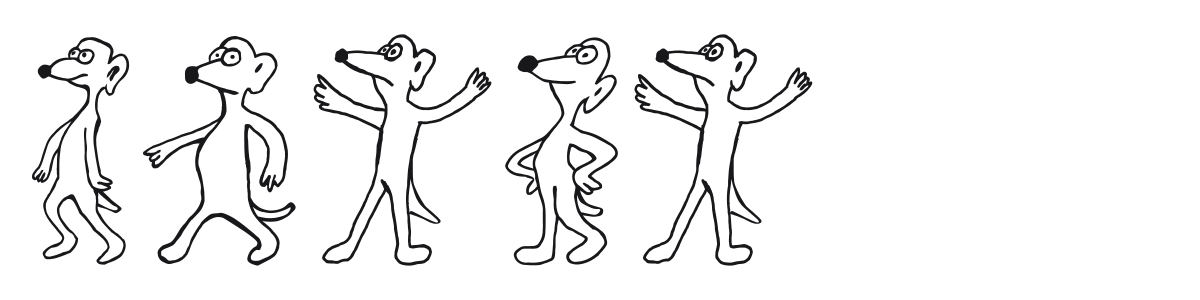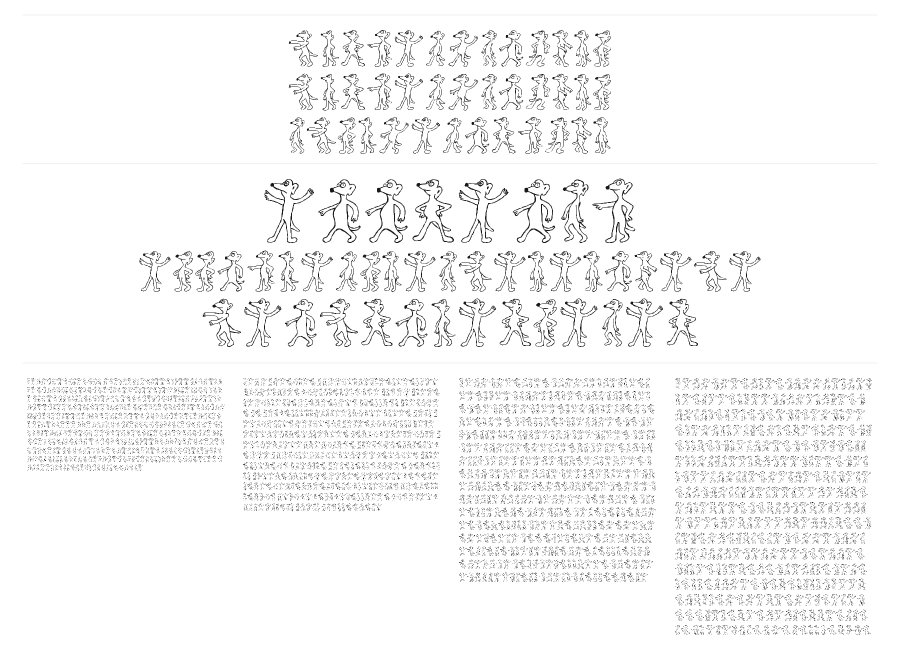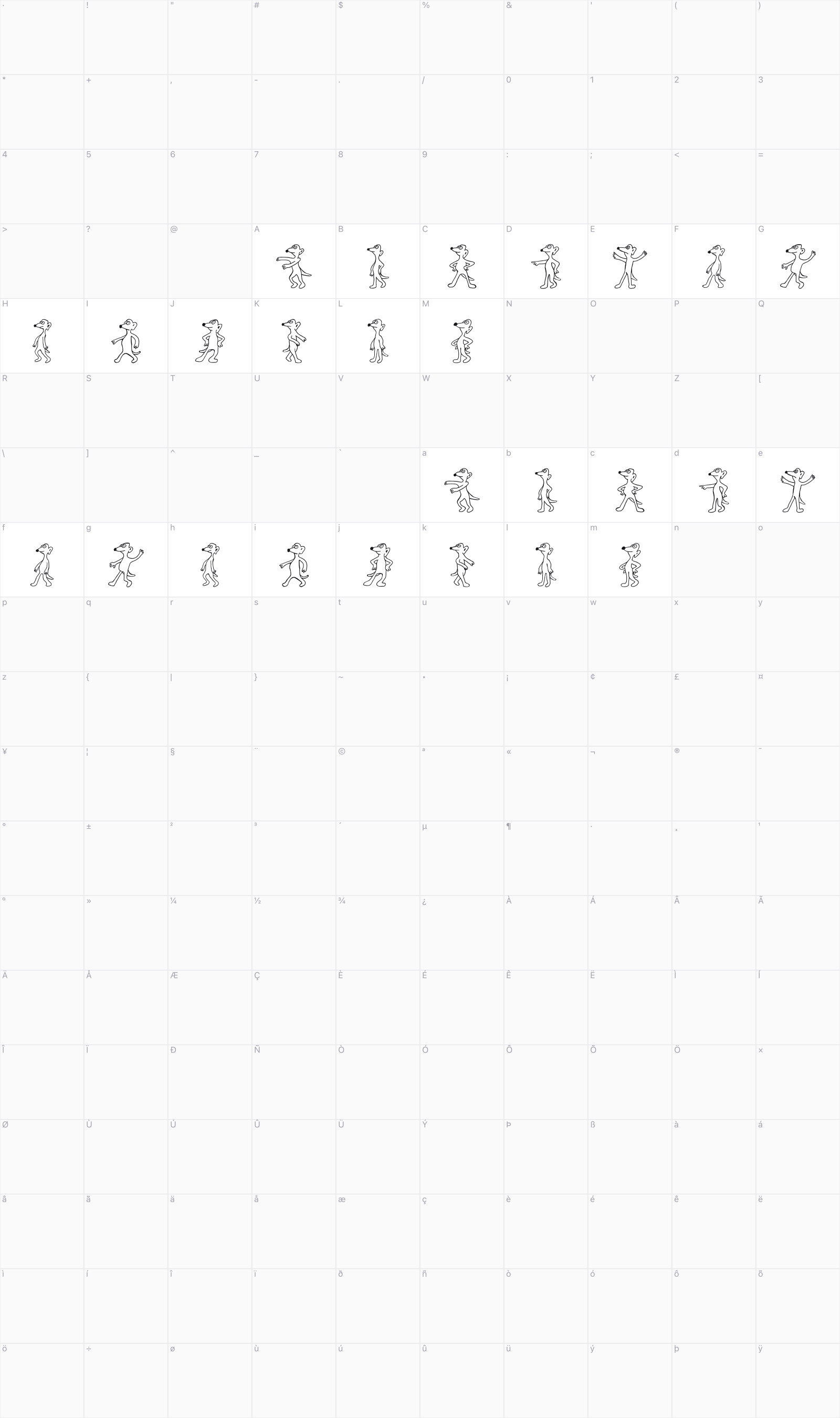
White Mouse
White Mouse is a dingbat font by Vladimir Nikolic featuring a cast of cartoon meerkats in expressive poses. Each glyph is a distinct illustration rendered in clean outline line art, giving the set an animated, storybook energy. Great for children's content, nature themes, or anywhere a bit of personality is needed.